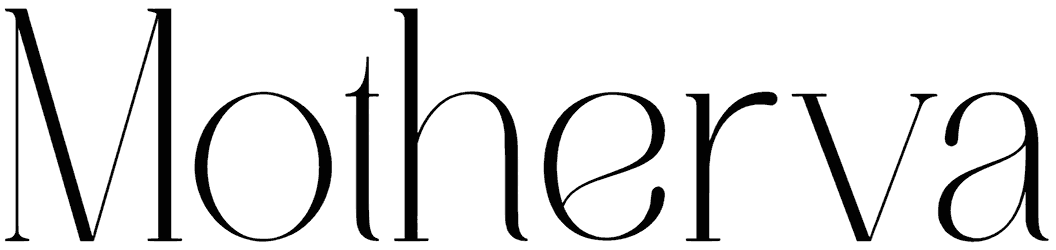
Motherva Font
Here we come again with a marvelous, elegant font, the same as Motherva that is capable of adding a vibe of trustworthiness, formality, professionalism, or confidence to any kind of graphic content.
It comes with elongated characters and a simple form, thus it would be insanely perfect for designing high-end logos, brochures, applications, presentations, or publications. Needless to say, we have provided a wide range of fonts on the RB archive for your convenience.
A Font by Aluyeah Studio
Motherva, the most comfortable modern display font.